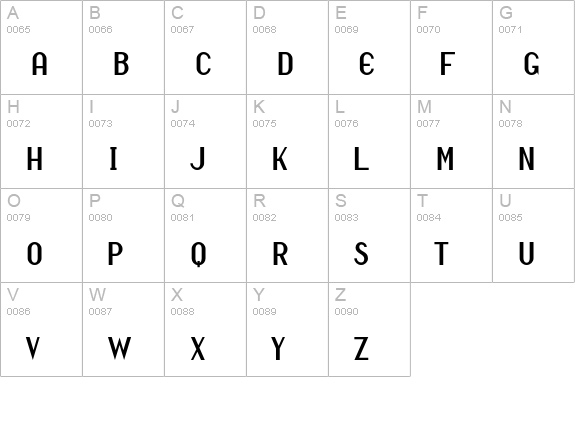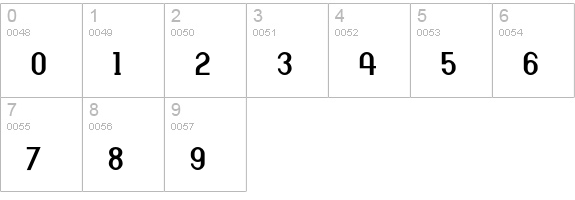
Revival Font Details
Introducing Revival Font, a captivating and versatile typeface that breathes new life into your design projects. With its elegant curves and delicate serifs, Revival Font exudes a sense of timeless sophistication, making it the perfect choice for both formal and creative applications. This font boasts a harmonious balance between classic and contemporary design elements, giving your text a unique and distinctive look. Its clean lines and well-defined characters ensure legibility at any size, whether it's used for headings, body text, or branding materials. But what sets Revival Font apart is its accessibility - it's available to download for free at FontsMarket.com. Yes, you heard it right. This remarkable typeface can be yours without any cost, making it a valuable asset for both professional designers and hobbyists alike. By offering Revival Font for free, the creators behind this remarkable typeface aim to empower designers and enthusiasts to unleash their creativity without any limitations. Whether you're working on a personal project, a client's request, or simply exploring the world of typography, Revival Font is here to inspire and elevate your work. So, why wait? Head over to FontsMarket.com today and seize the opportunity to download Revival Font for free. Elevate your designs, express your creativity, and make a lasting impression with this exceptional typeface.